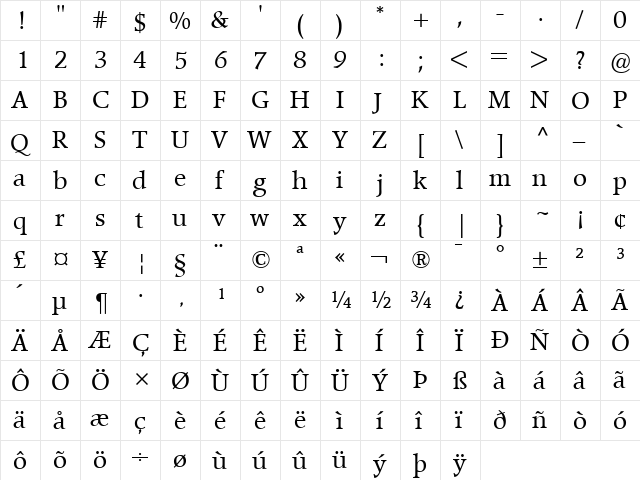
Poppl-Pontifex BE Regular
Design Context for Poppl-Pontifex BE Typeface
Poppl-Pontifex BE takes a measured approach to typography — its balanced proportions and neutral character make it a reliable workhorse for both digital and print work.